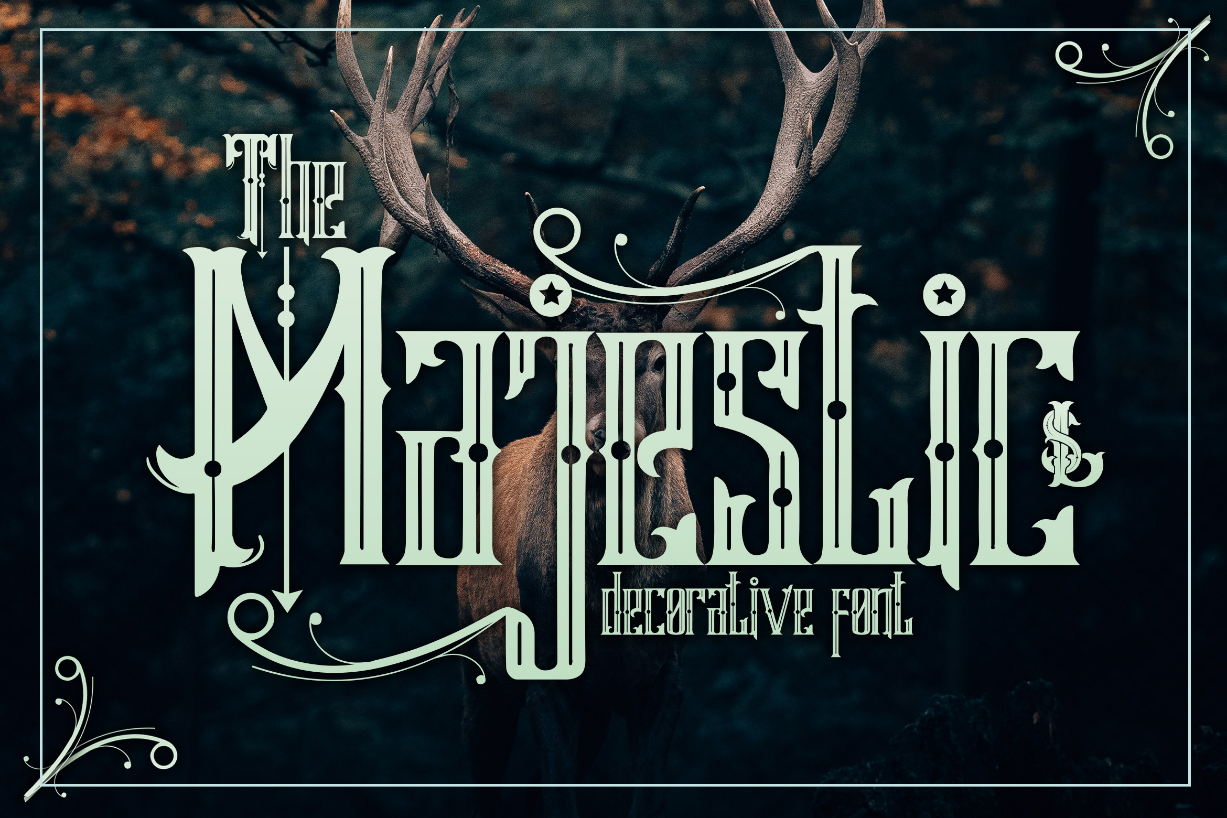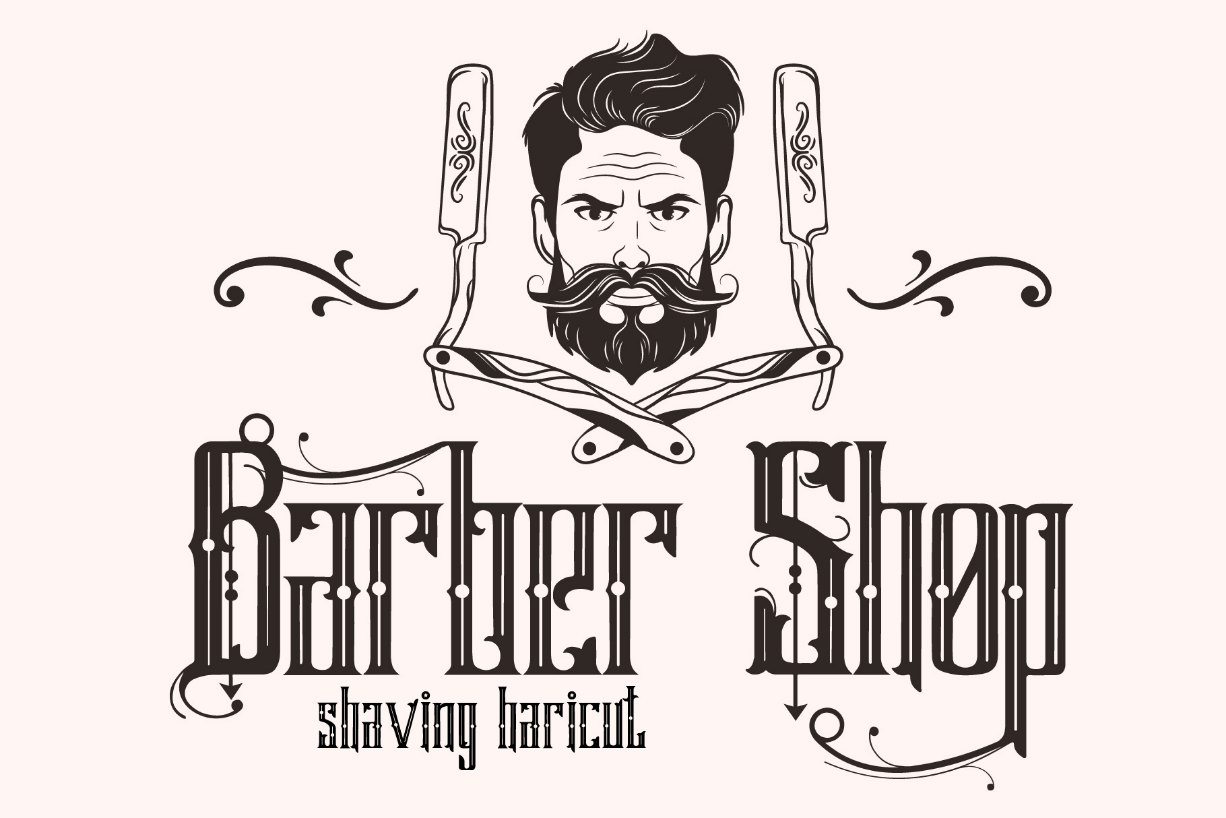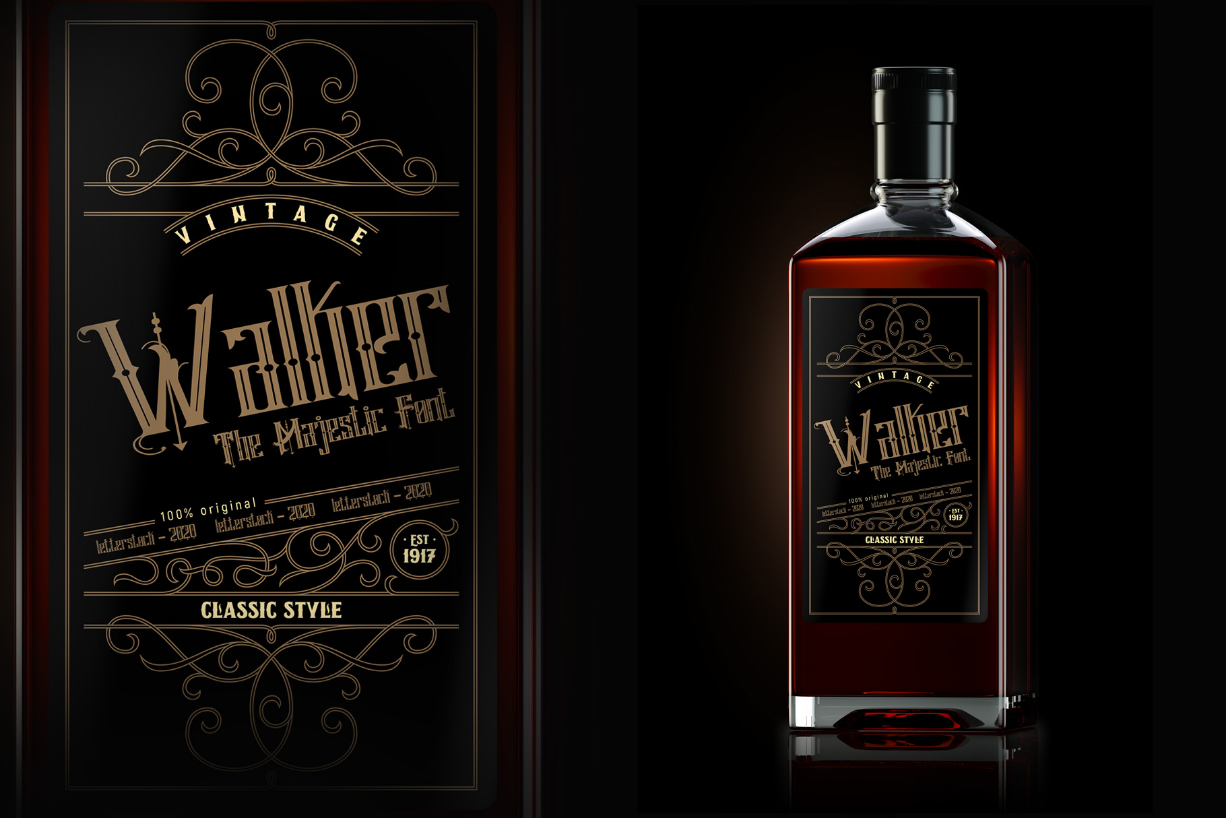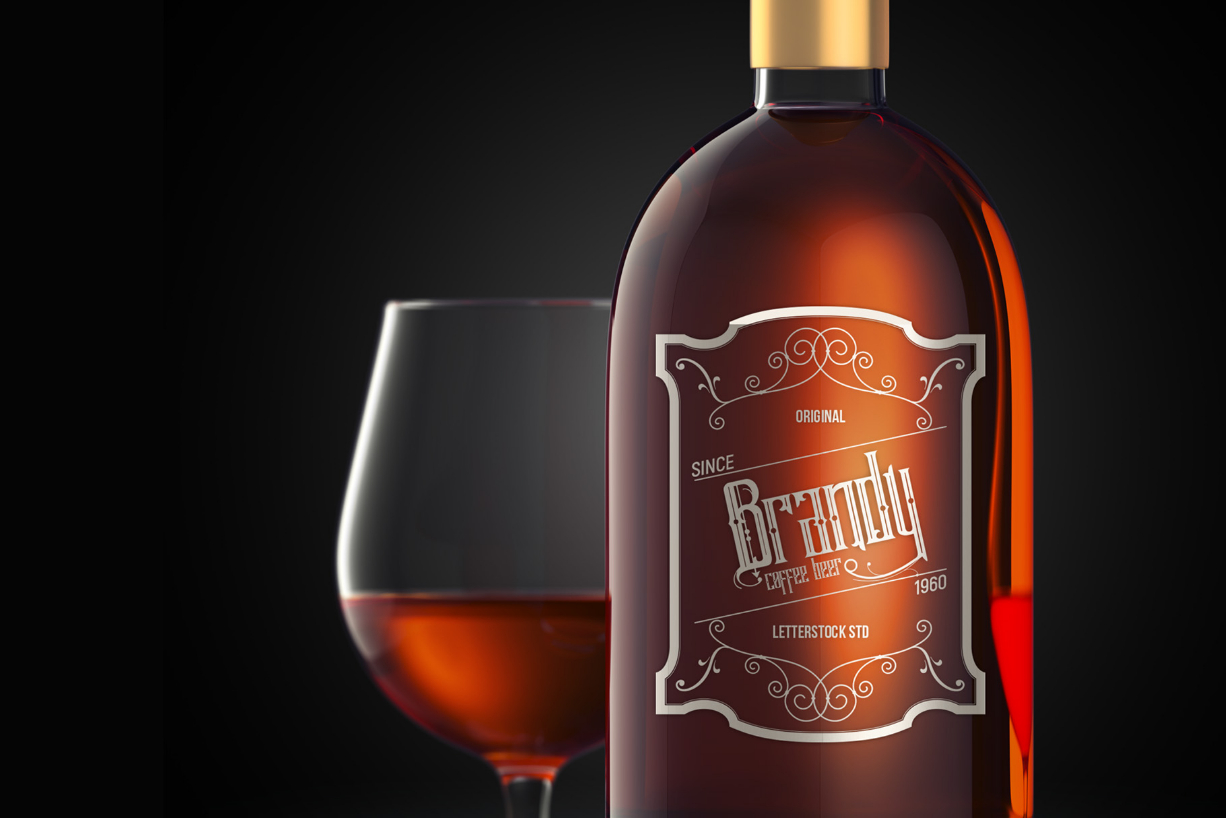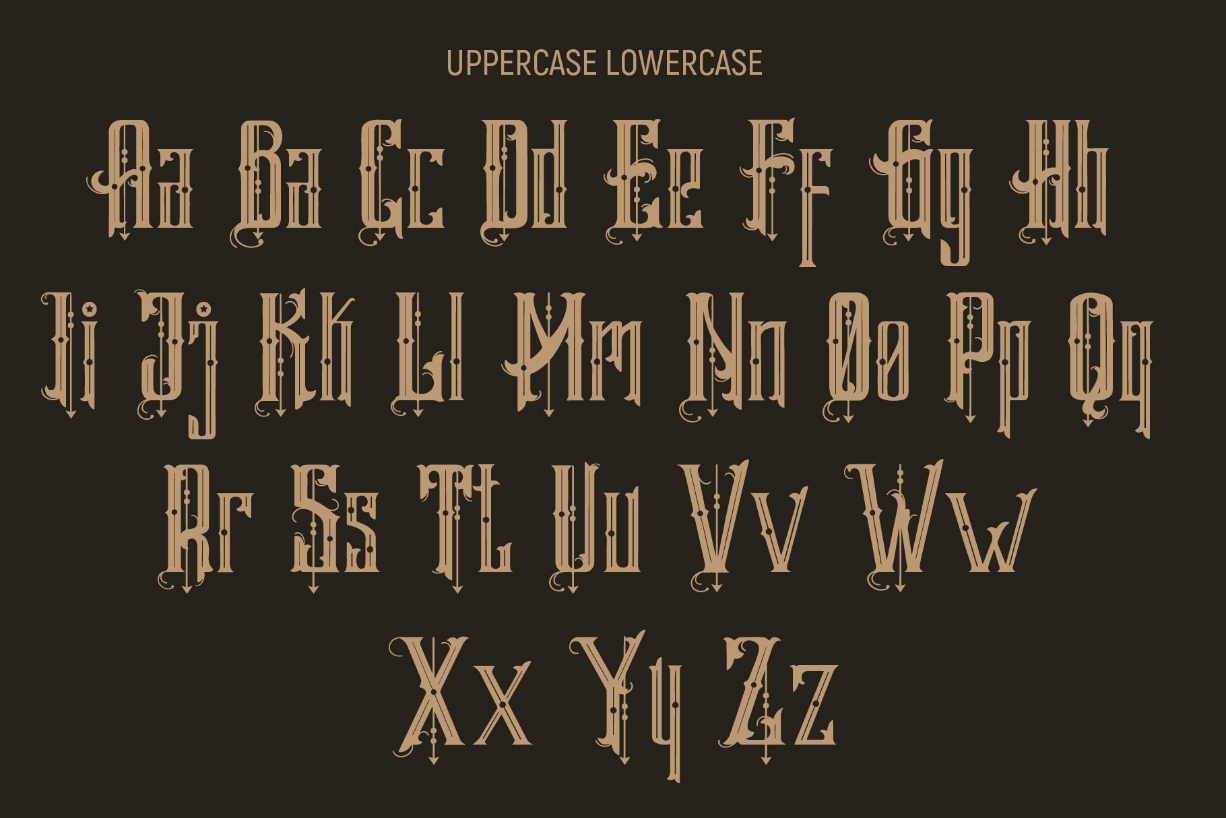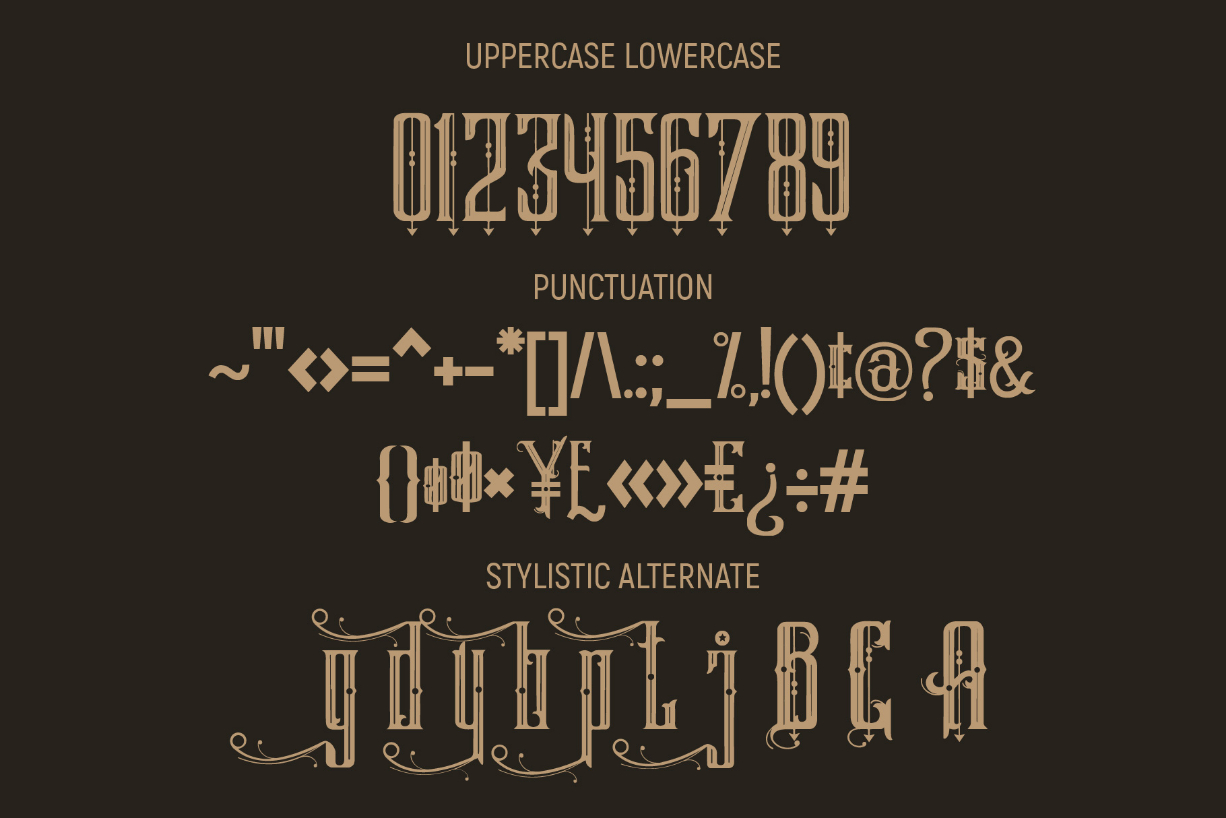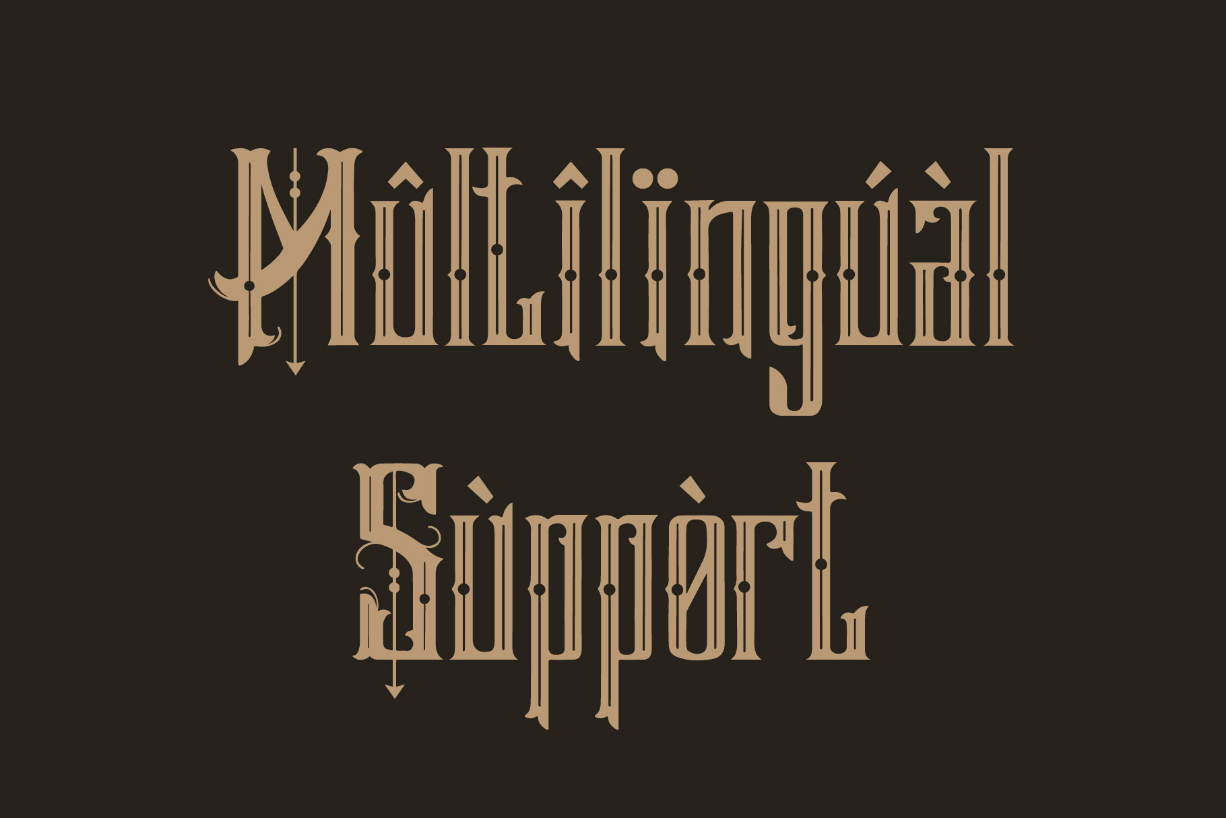
The Majestic Font
About The Majestic Font
The Majestic is a bold and dramatic blackletter font. Add this powerful font to each of your design ideas and notice how they stand out!